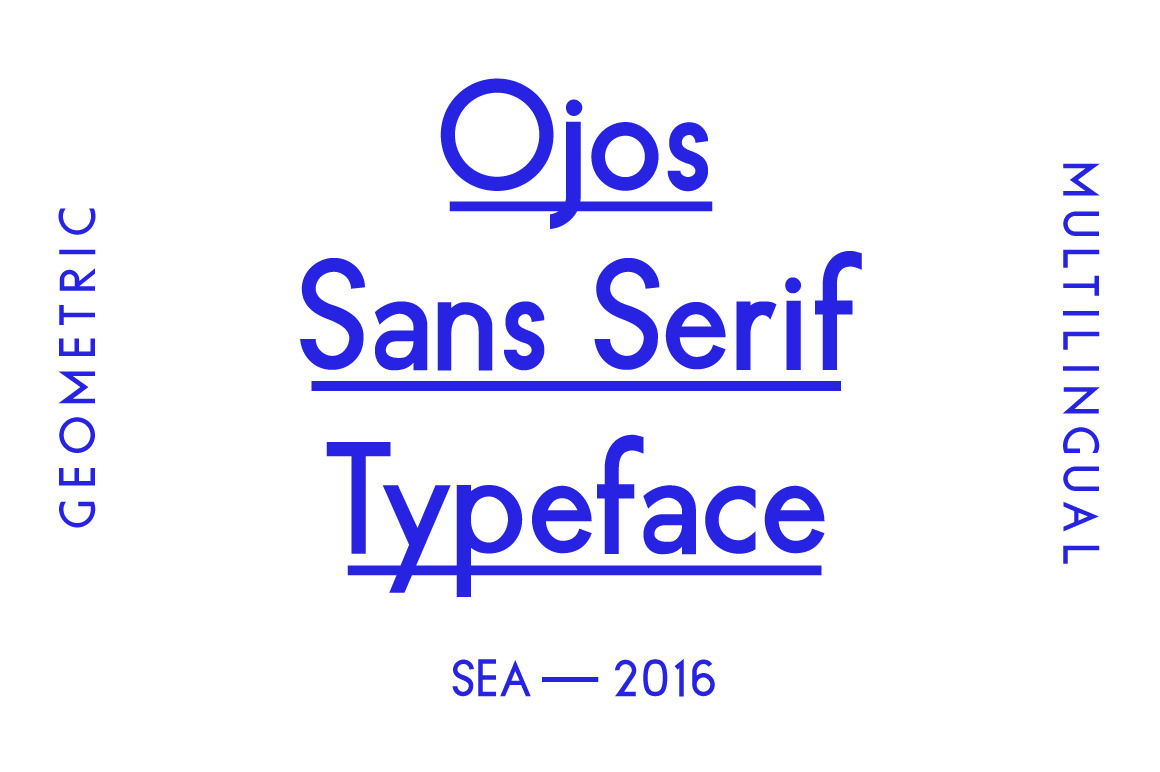
Ojos Sans Serif Font
Ojos is a new geometric, sans-serif font from the creative minds of Studio de Luz and Chris Ballasiotes. Crisp lines, sharp angles, and beautiful shapes make this font specimen a solid foundation for any typographic piece or lockup. Complete with multilingual support and extensive glyph composition. Updates to this font will always be free to existing owners - improved letterforms, added features, and new issues.